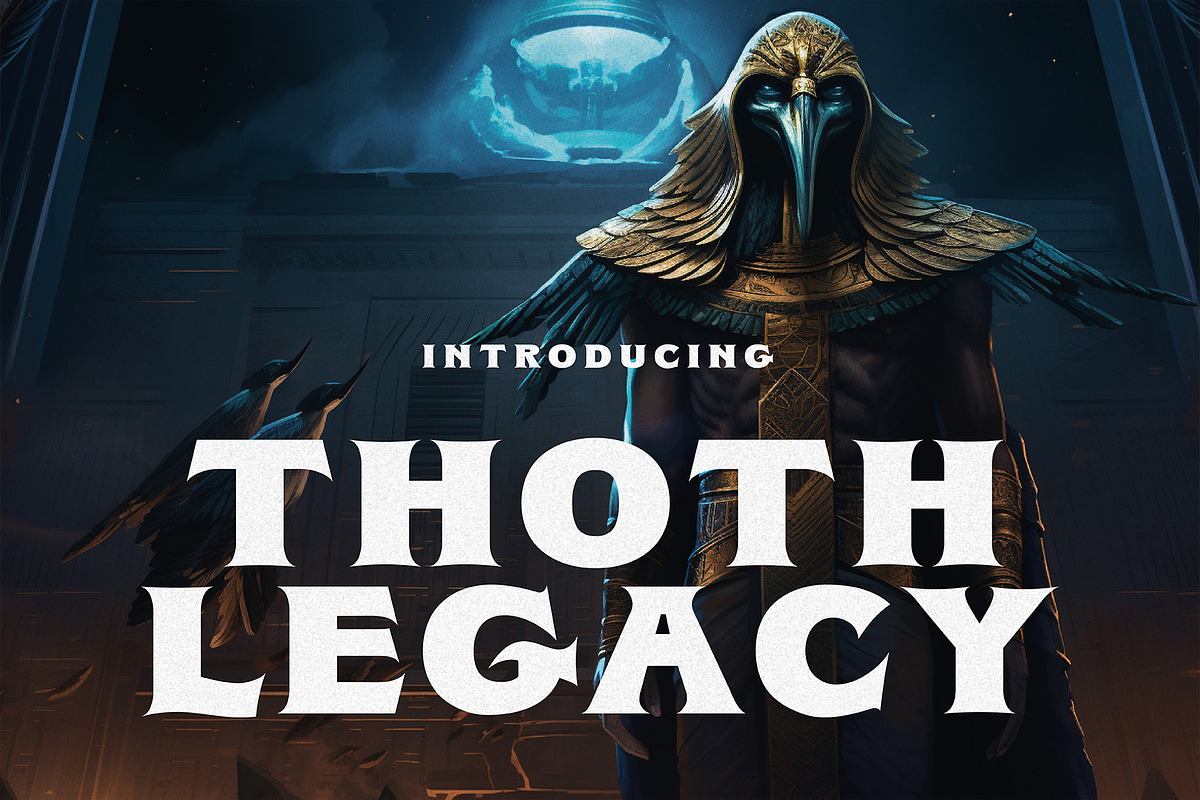
Thoth Legacy - Egyptian Typeface Free Download
Thoth Legacy - Egyptian Typeface Free Download is a striking and symbolic typeface inspired by ancient Egyptian art, mythology, and hieroglyphic design. With its bold lines, angular forms, and mystical aesthetic, this font is perfect for historical-themed projects, museum exhibits, fantasy book covers, adventure games, and cultural branding.
Channeling the wisdom and power of the Egyptian god Thoth, this typeface blends authenticity with creative flair. Each character reflects the sacred geometry and storytelling of ancient times, making your typography feel rich with heritage and mystery.